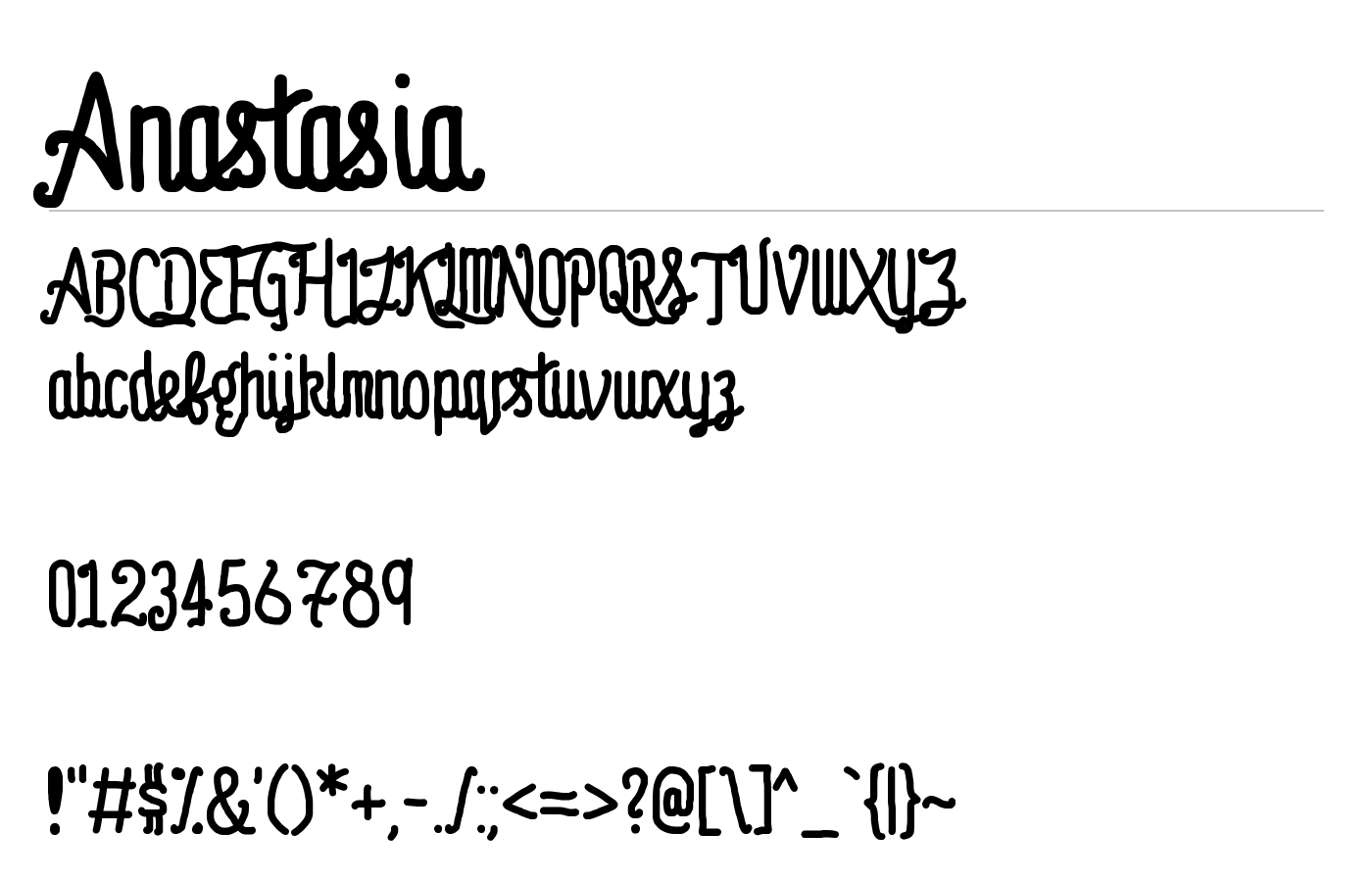
Anastasia Font is a playful and quirky sans serif typeface with a hand-drawn, casual style. Its narrow letterforms, consistent stroke weight, and unique character shapes give it an informal, friendly personality that works well for creative branding, invitations, and fun editorial projects. This font shines in settings where a personal touch and approachable vibe are desired, making it ideal for headlines or decorative text.
Anastasia Font
About Anastasia Font
| Font family | Anastasia Font |
| Designer | Annie M |
| Trademark | Anastasia, by Chequered Ink. |